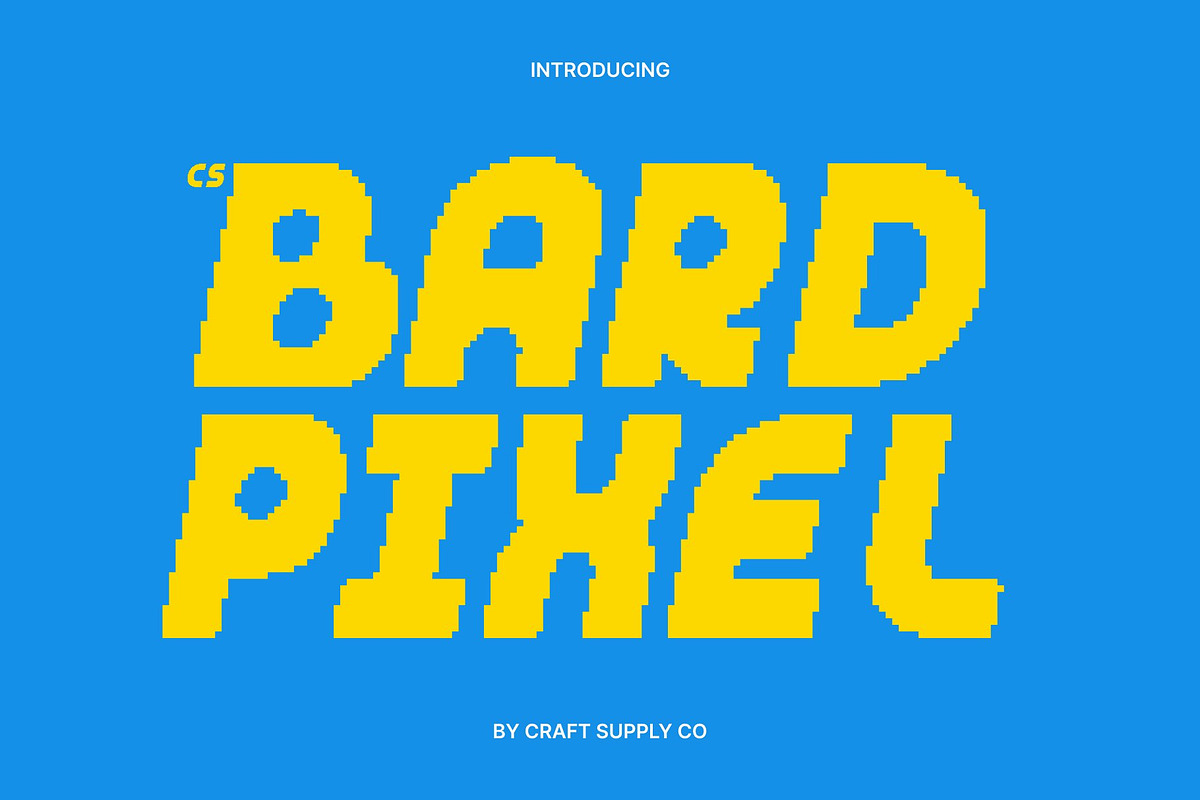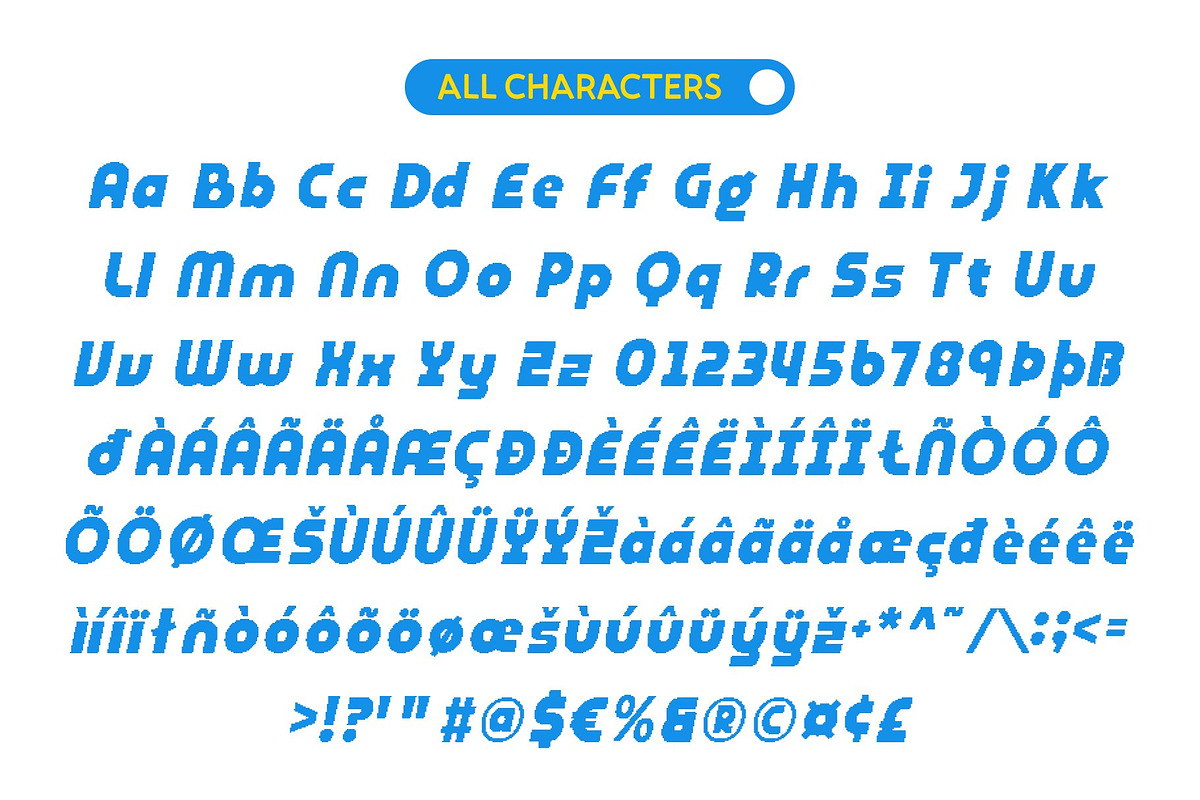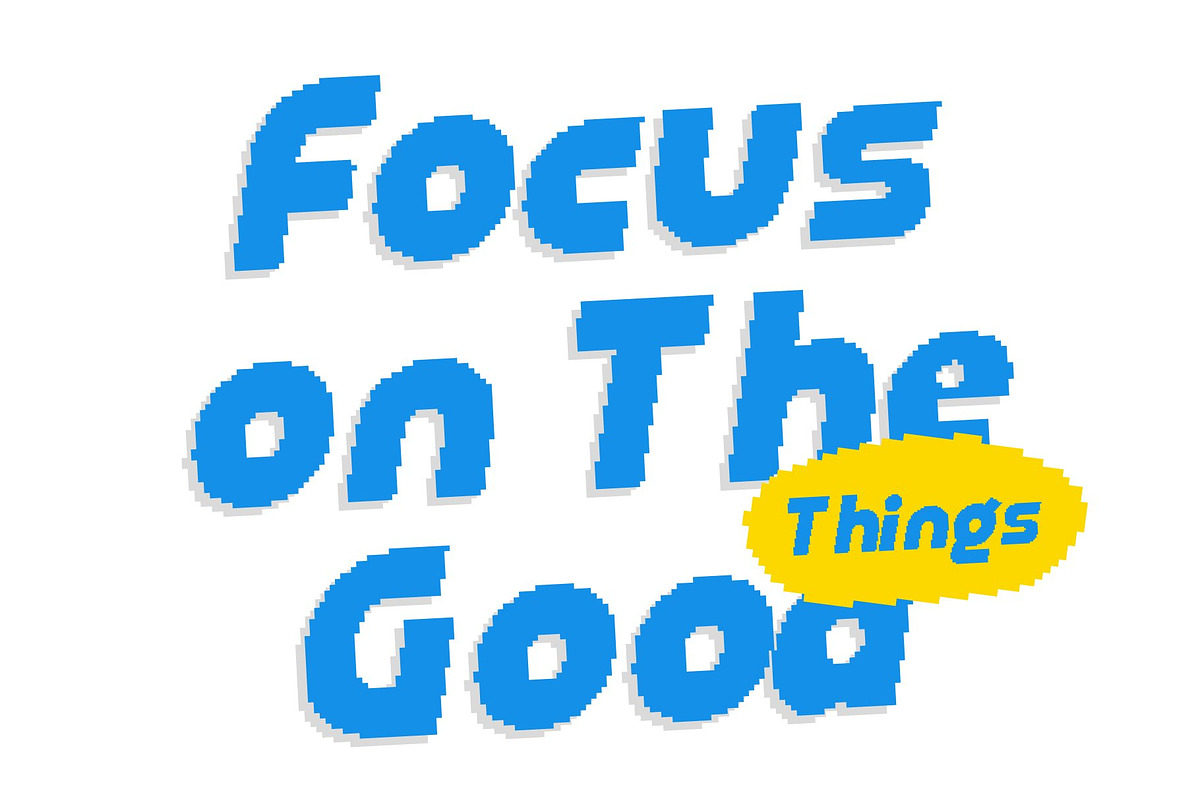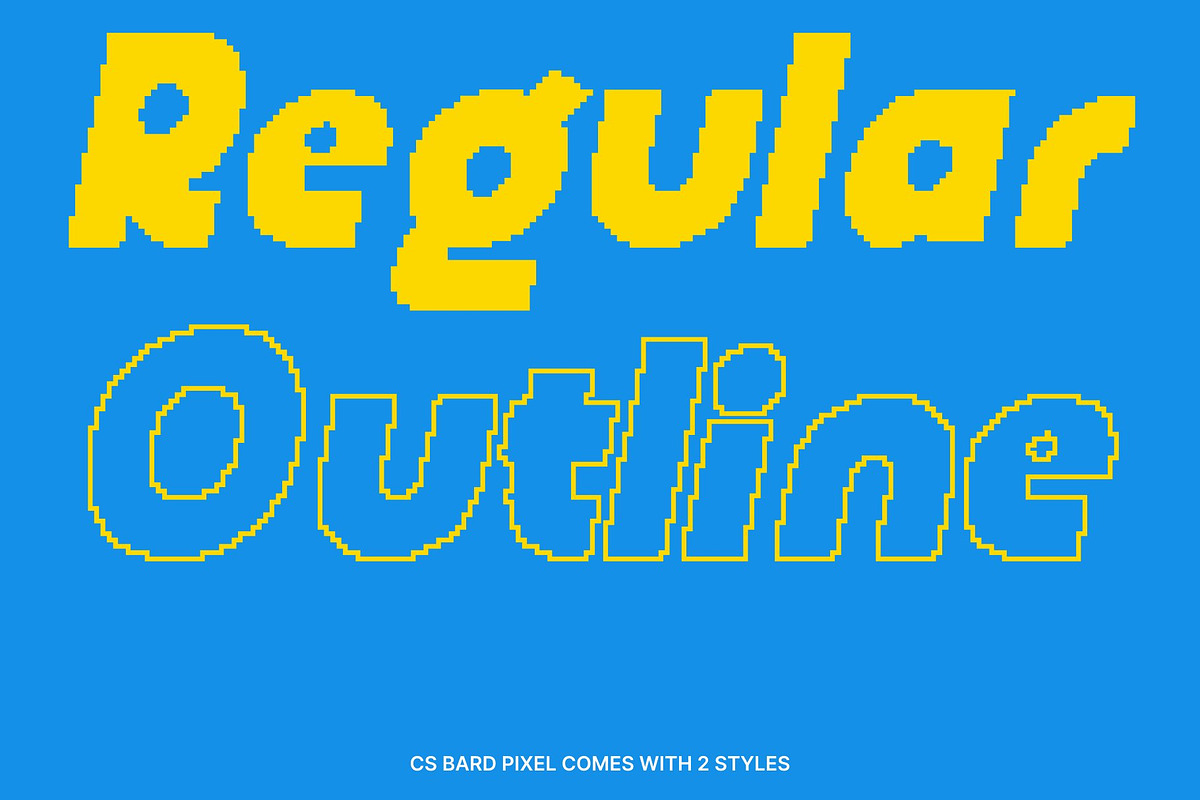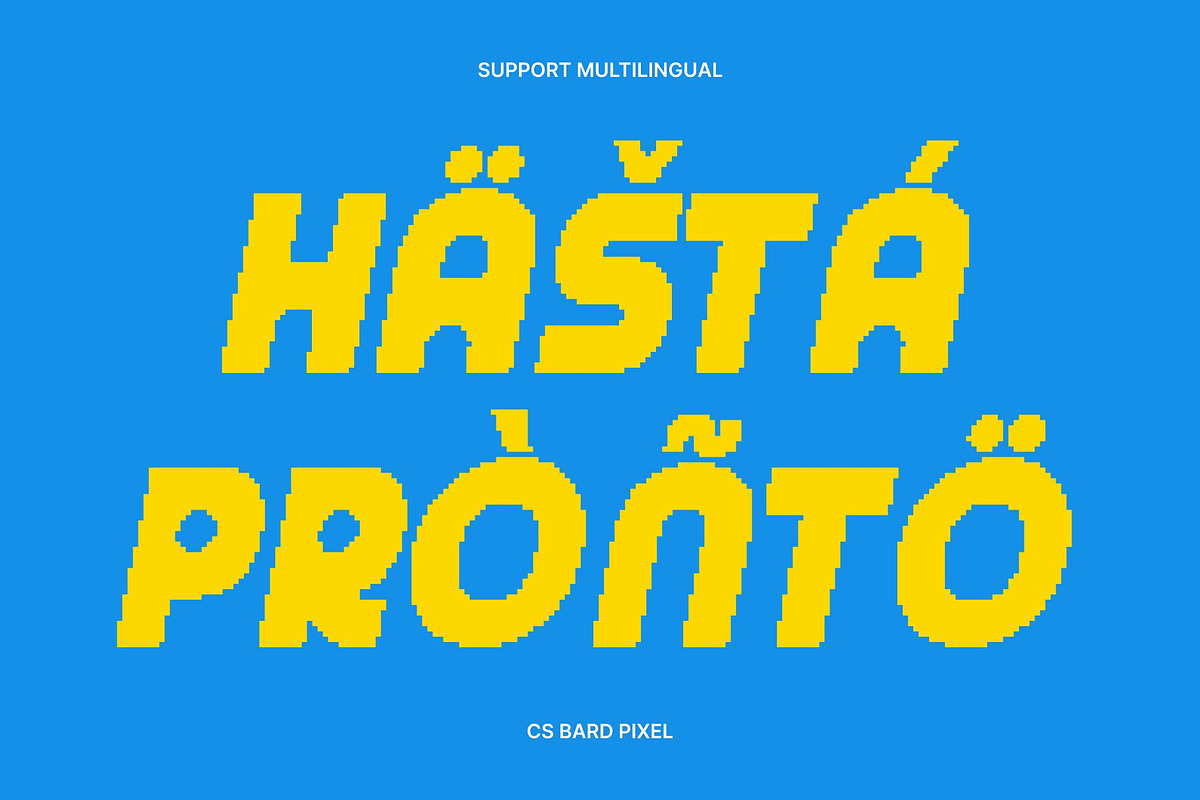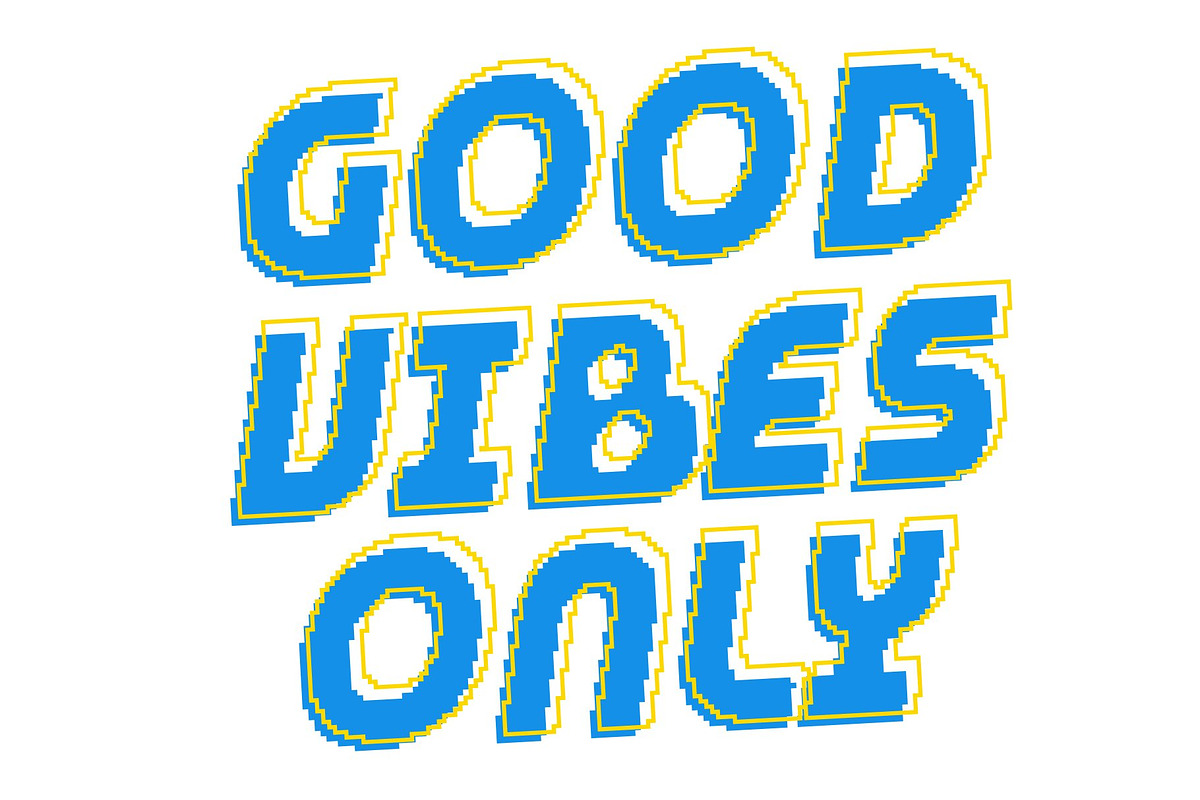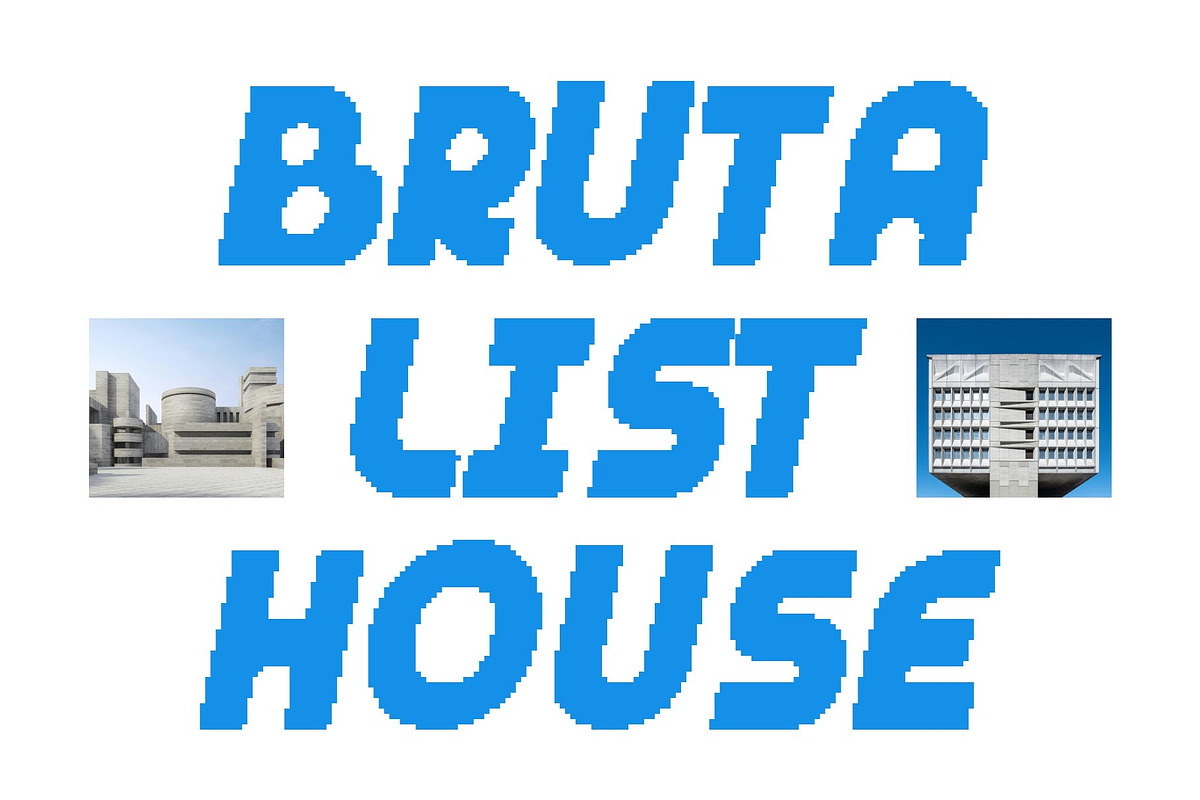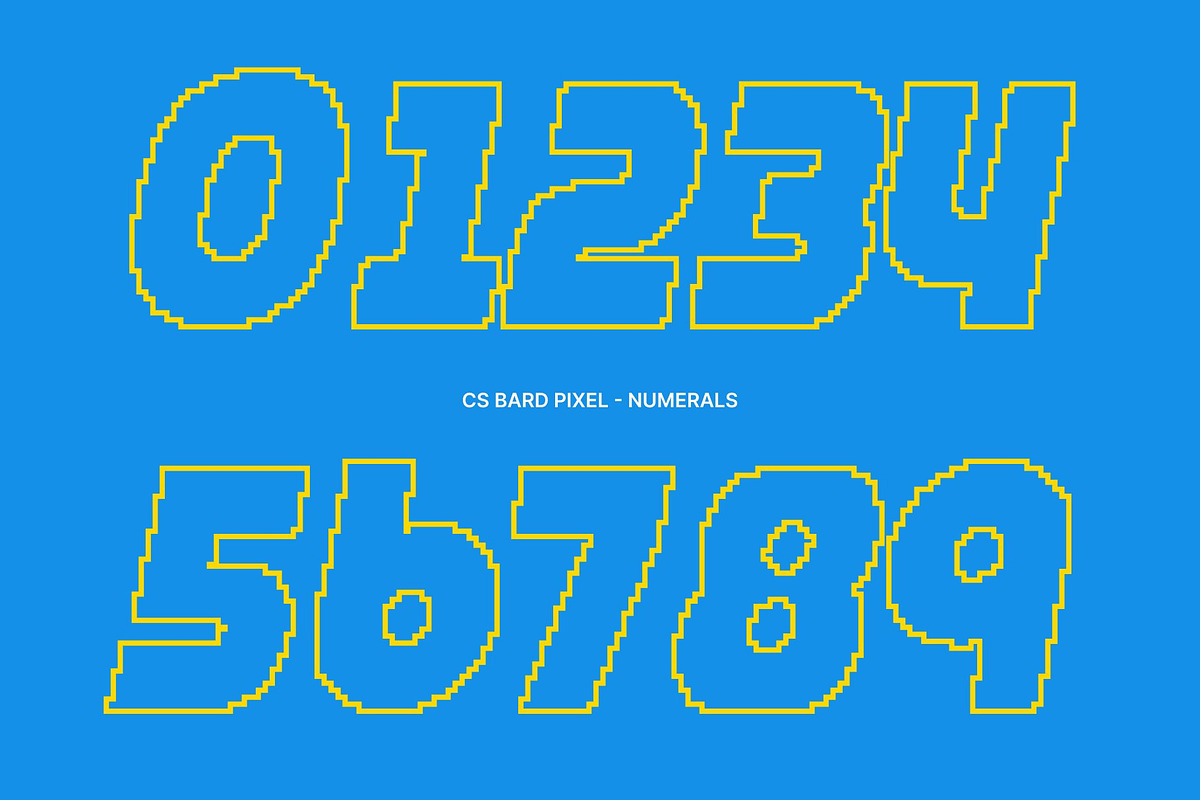
CS Bard Pixel
CS Bard Pixel – Bold Display Font: Chunky, Modern, and Playful in 8-Bit Style
Chunky Display Font with Retro Digital Strength This is a bold, chunky display font designed with thick strokes and strong geometric forms, enhanced by distinctive pixel details. Its solid construction delivers a confident, modern presence, while the pixel style introduces an unmistakable 8-bit, old-digital character. The result is a font that feels powerful and eye-catching, perfectly echoing the visual language of classic arcade screens and retro digital graphics.
Playful Pixel Details with Quirky Personality Beyond its bold weight, features playful pixel accents that add charm and character. These subtle digital quirks bring a nostalgic retro vibe, balancing strength with fun and creativity. The font feels lively and approachable, making it ideal for designs that want to channel classic pixel art energy without losing a contemporary edge.
Perfect for Retro Pixel and Digital Designs This font is especially suited for pixel-based designs, retro games, arcade-inspired visuals, and digital projects that celebrate old-school technology. It works beautifully for headlines, posters, logos, game titles, and branding that aims to evoke nostalgia while remaining bold and modern.
Eye-Catching, Memorable, and Nostalgic This font ensures your designs stand out with a memorable retro-digital identity. Combining chunky modern forms with classic 8-bit aesthetics, this font brings personality, energy, and timeless pixel charm to any creative project. It’s the perfect choice for designers seeking a bold display font with authentic old-digital, retro appeal.